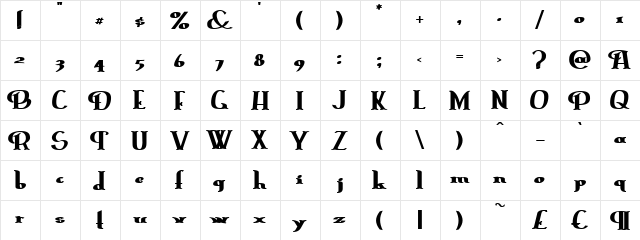
ErasmusInline Bold
Design Context for ErasmusInline Typeface
ErasmusInline brings ornamental detail and strong personality to headlines and identities, where visual impact matters more than quiet functionality. Its bold stroke weight gives it real presence on the page.
Font Pairing: Pair with a clean neutral sans-serif for body copy to let ErasmusInline's character lead without overwhelming the composition.
Pro Tip: Treat ErasmusInline as the centrepiece of your typographic hierarchy. One strong heading set in a decorative face can carry an entire layout.